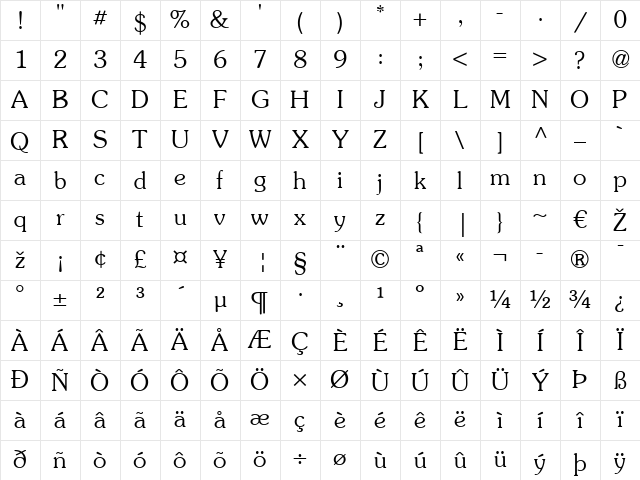
Souvenir LT is a composed and adaptable typeface that performs quietly and consistently across a wide range of design contexts. Its slender proportions lend an understated elegance to any composition.